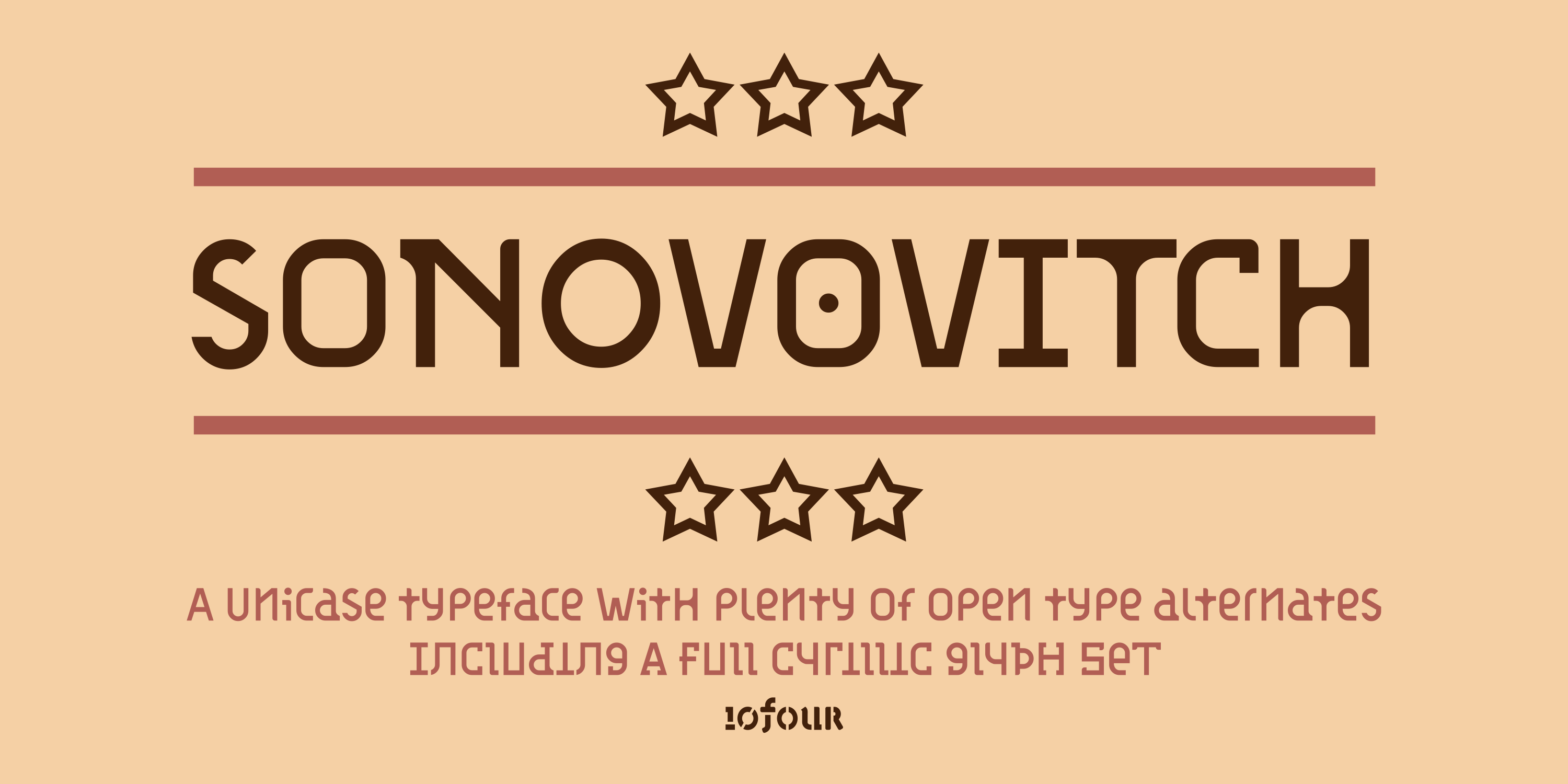
Sonovovitch Font is perfect for Eastern European restaurants, vodka brand packaging, Russian cultural events, Slavic heritage celebrations, international cuisine menus, ethnic festival posters, traditional folk art projects, cultural center signage, immigrant community branding, and authentic Eastern European designs.
Sonovovitch Font is exciting because it embodies the rich cultural heritage and distinctive character of Eastern European typography with bold letterforms that evoke the strength and resilience of Slavic traditions, making it perfect for brands celebrating authentic cultural identity and ethnic pride.
The Sonovovitch Font family includes regular and bold weights with Cyrillic-inspired character styling, Eastern European ornaments, and cultural decorative elements, providing designers with authentic tools for creating typography that honors traditional Slavic heritage and cultural authenticity.
When your project needs authentic Eastern European character and cultural gravitas, Sonovovitch Font Free Download provides the perfect typographic foundation for celebrating Slavic heritage. This distinctive display typeface combines traditional Eastern European design aesthetics with modern functionality, ensuring your brands connect with audiences seeking genuine cultural experiences and ethnic authenticity. The robust letterforms and cultural depth make this font an essential choice for restaurants, cultural organizations, and any application where Eastern European heritage, traditional values, and authentic cultural identity are crucial for establishing credibility and connecting with communities that cherish their rich Slavic roots and cultural traditions.